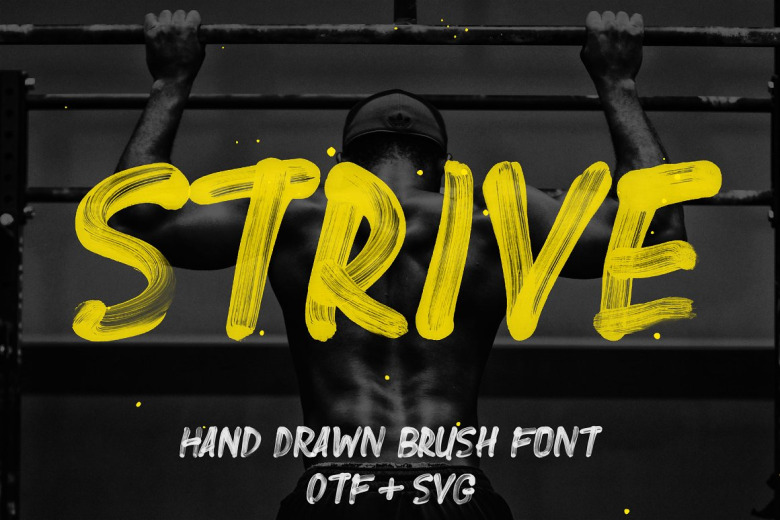
Strive Font
Strive is a brush script font with a handwritten aesthetic that can be used in any situation. It includes uppercase as well as lowercase characters. This slightly chunky all-caps font includes one sets of letters, providing you with the most realistic hand written final design possible. With the standard OTF font. Strive is perfectly tailored for marketing & advertising, quotations and content for social media applications, etc.
Strive Brush Script Font